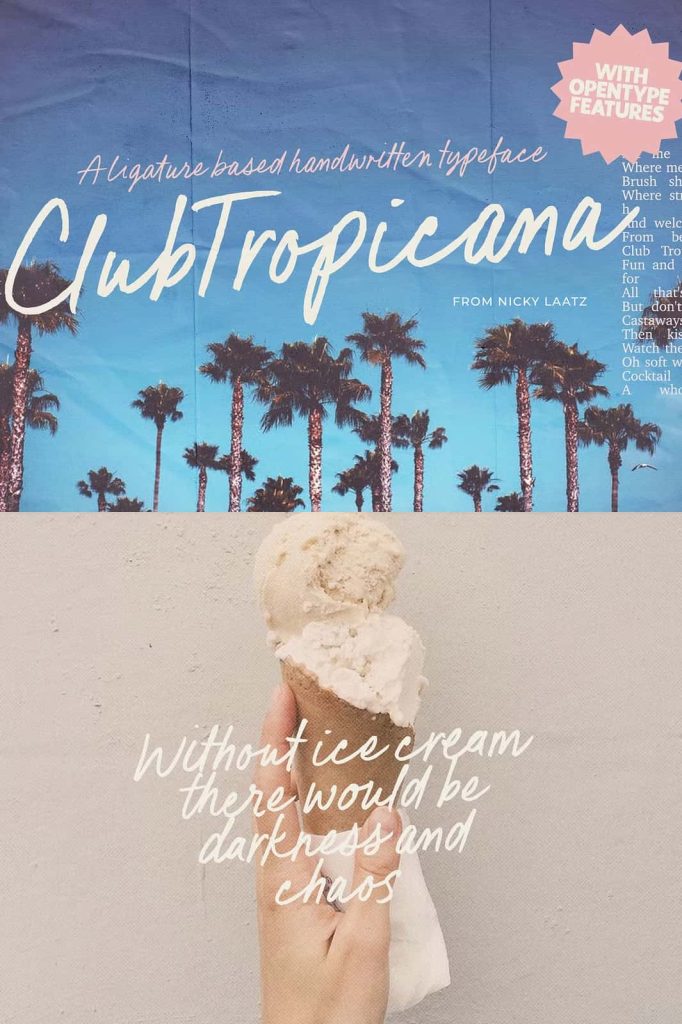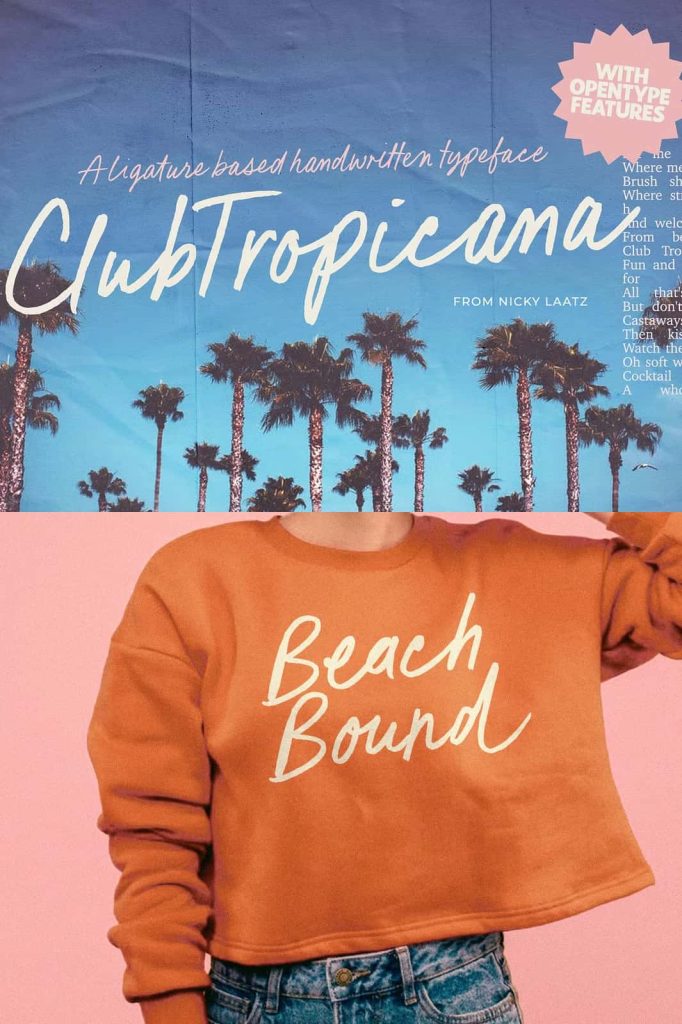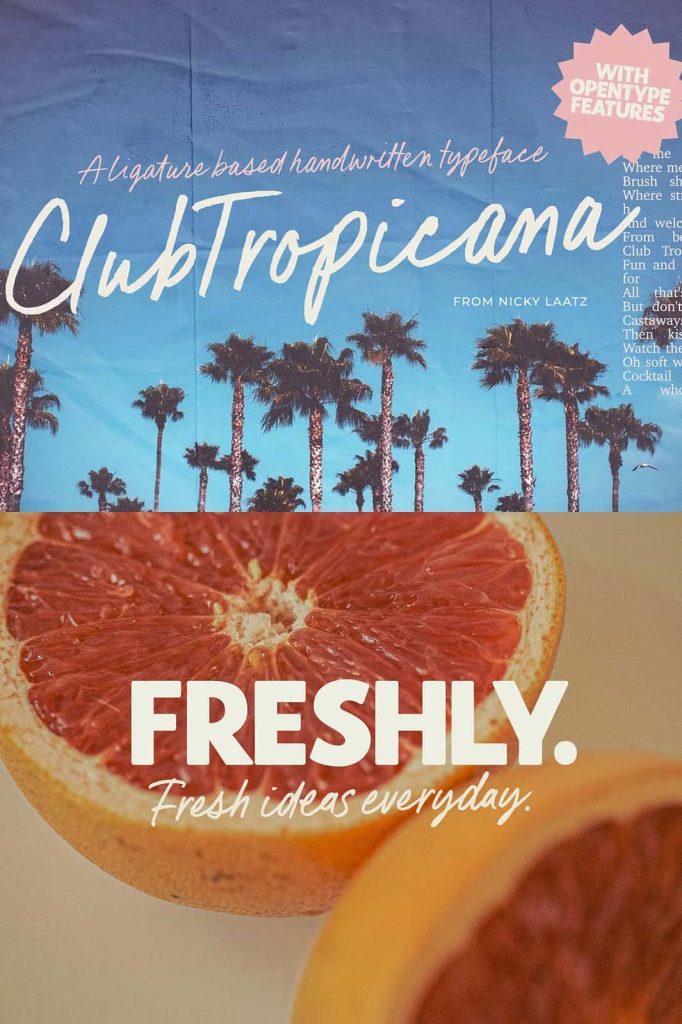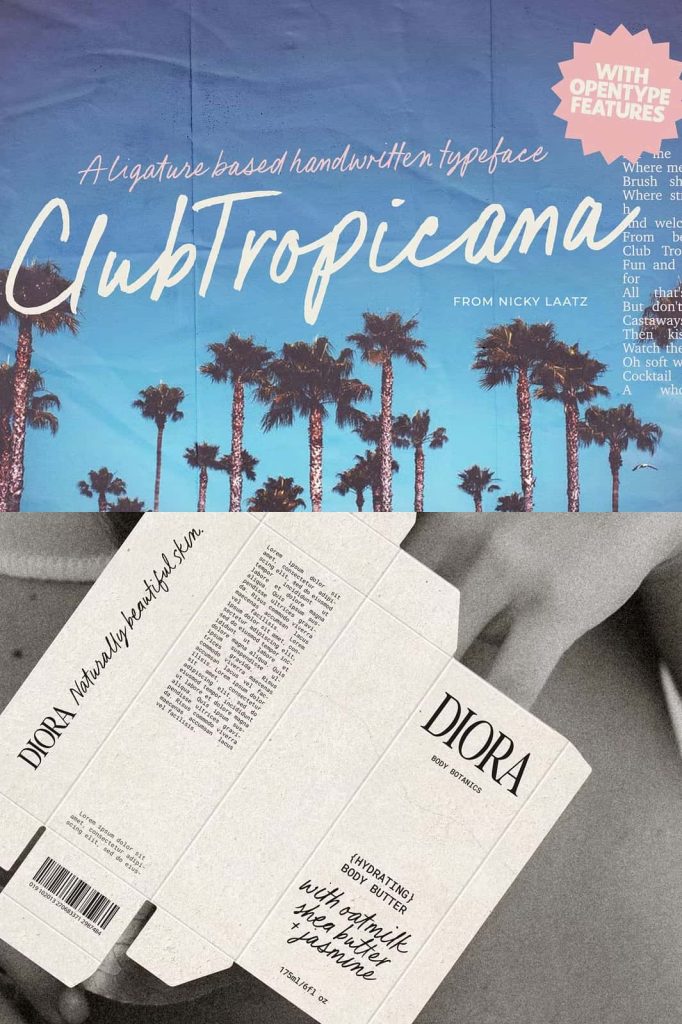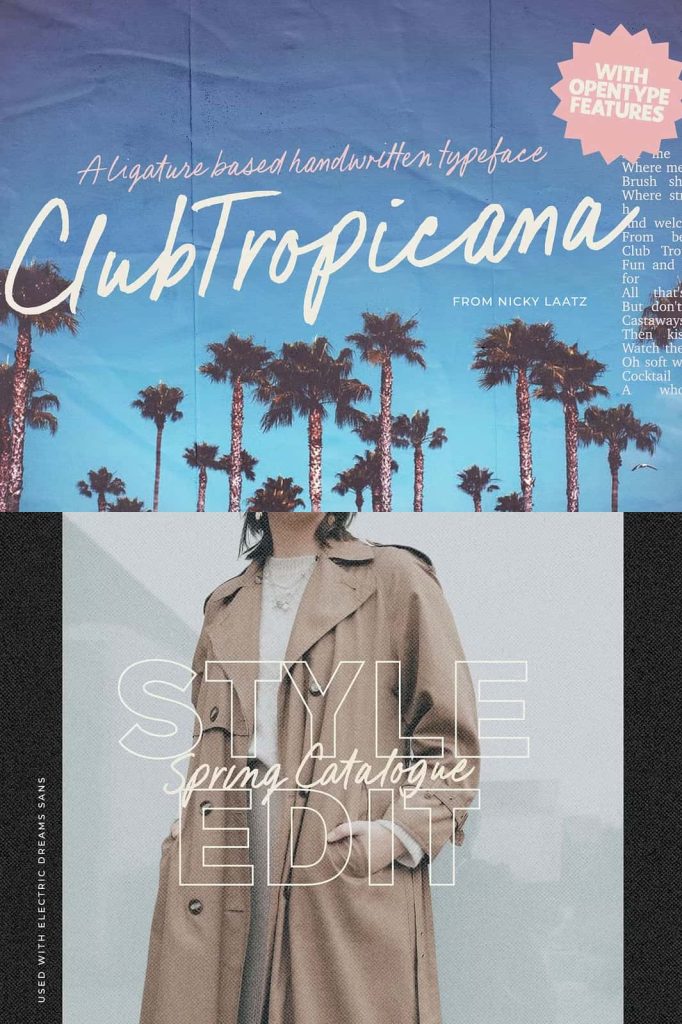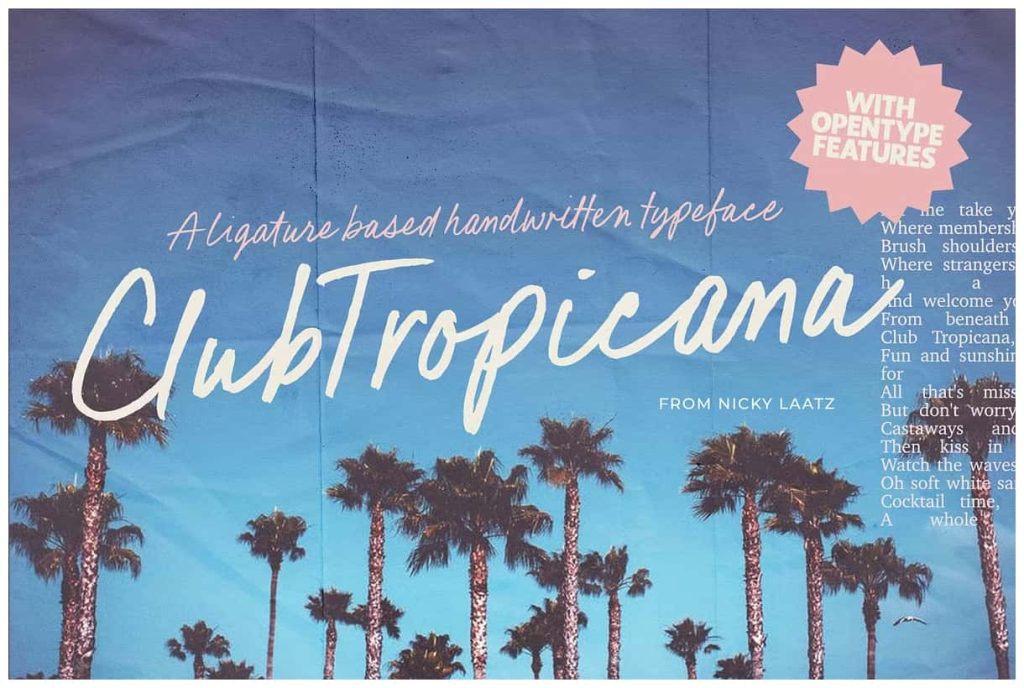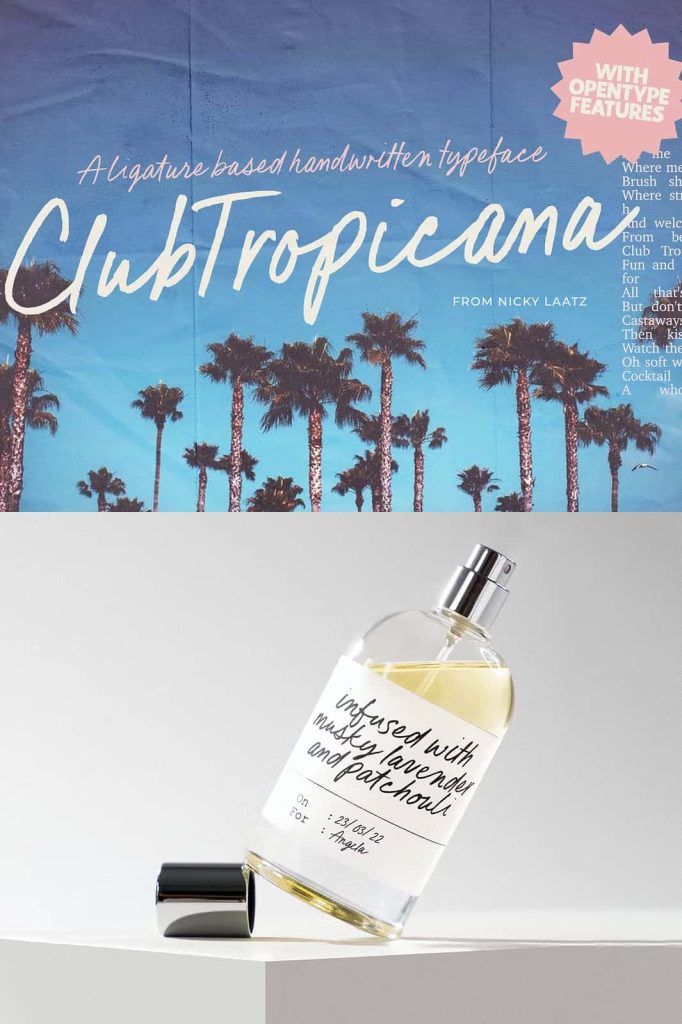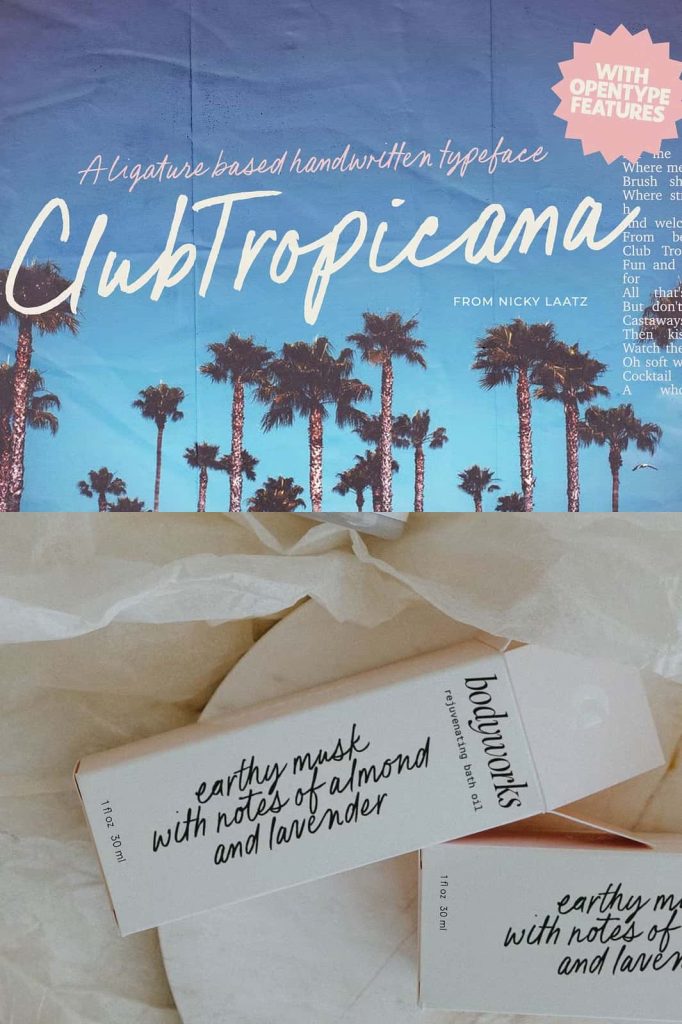
Say hello to Club Tropicana! – An inky and imperfect handwriting script font with 105 extra Opentype ligatures and alternates to add to its naturally handwritten look.